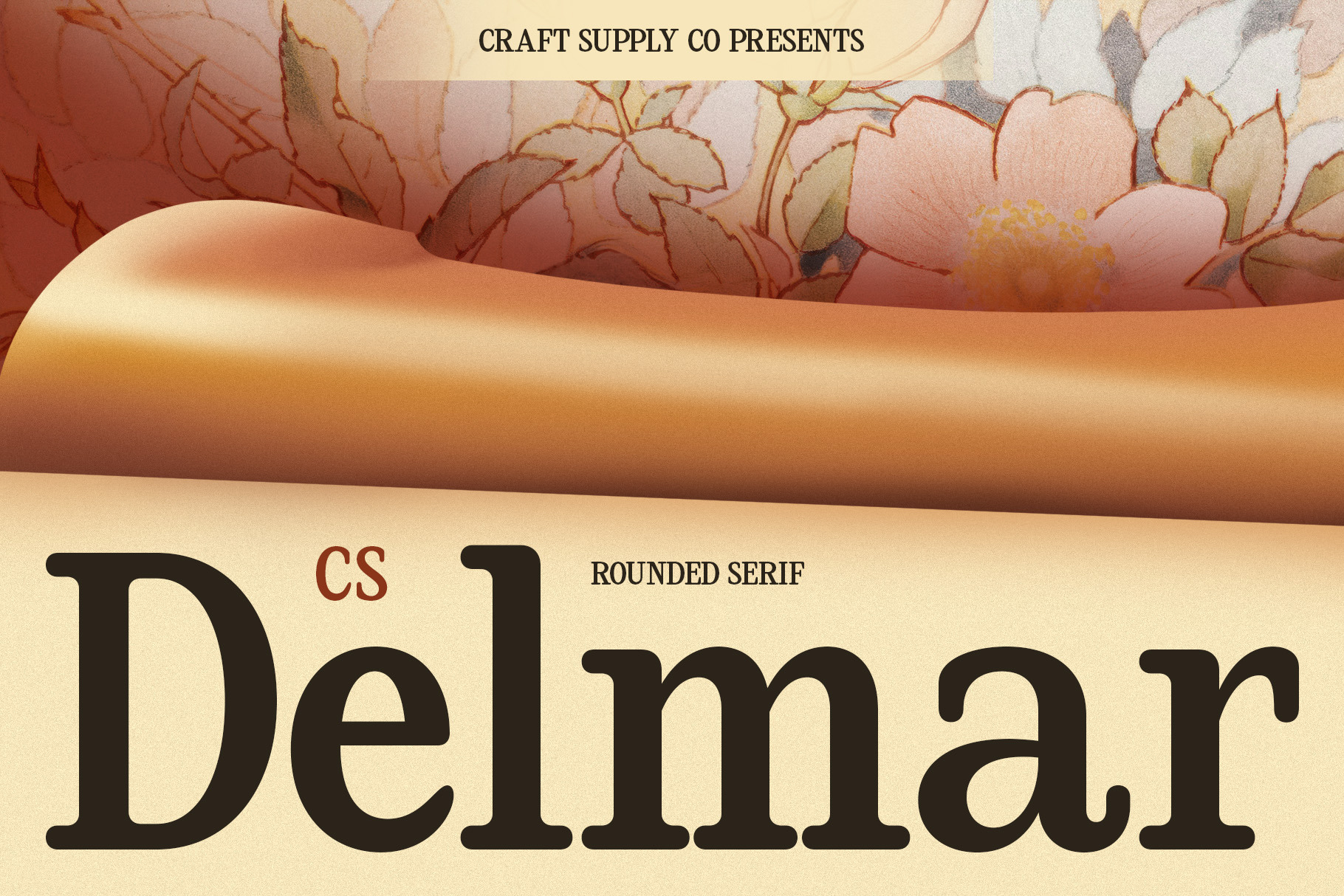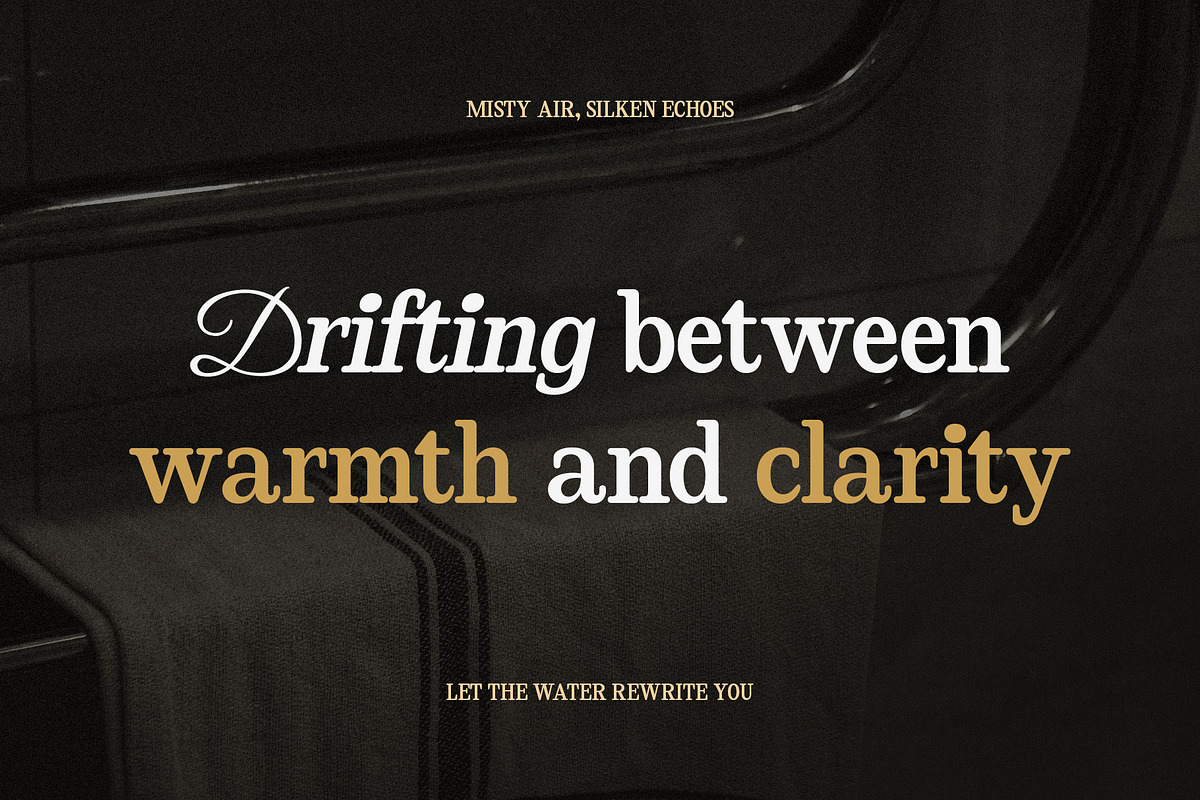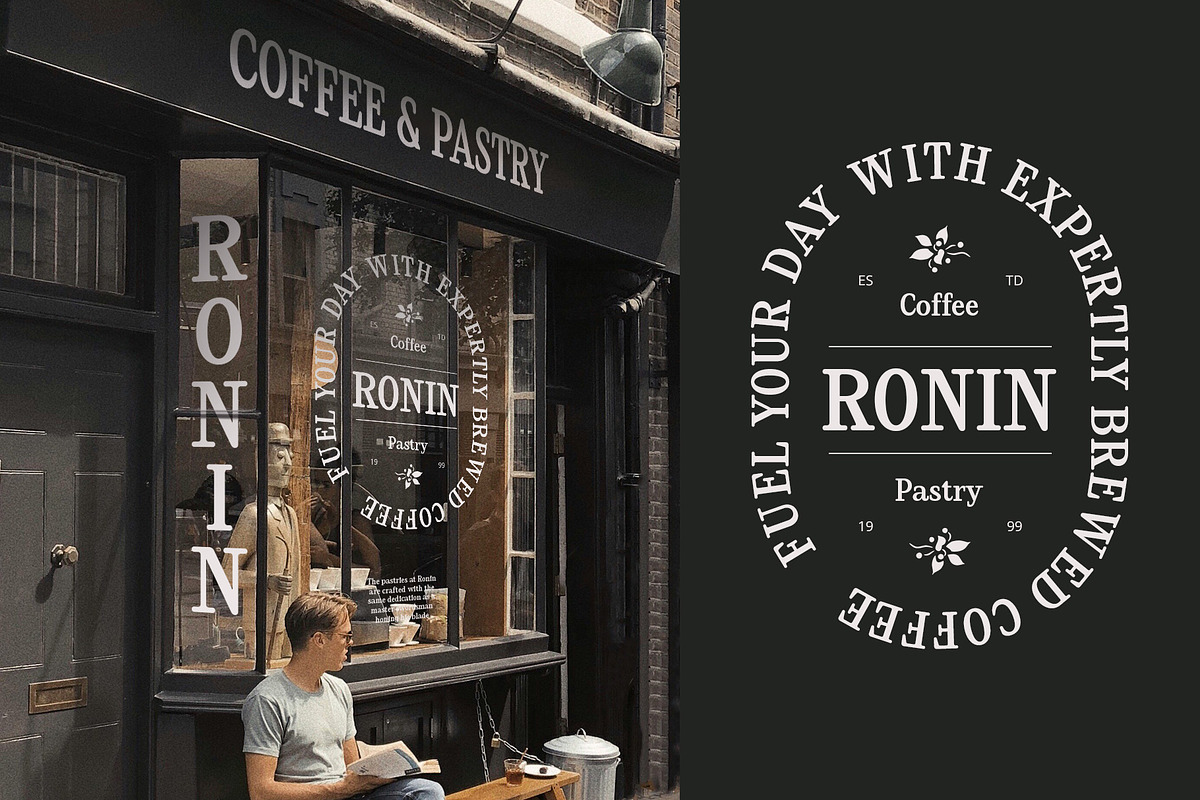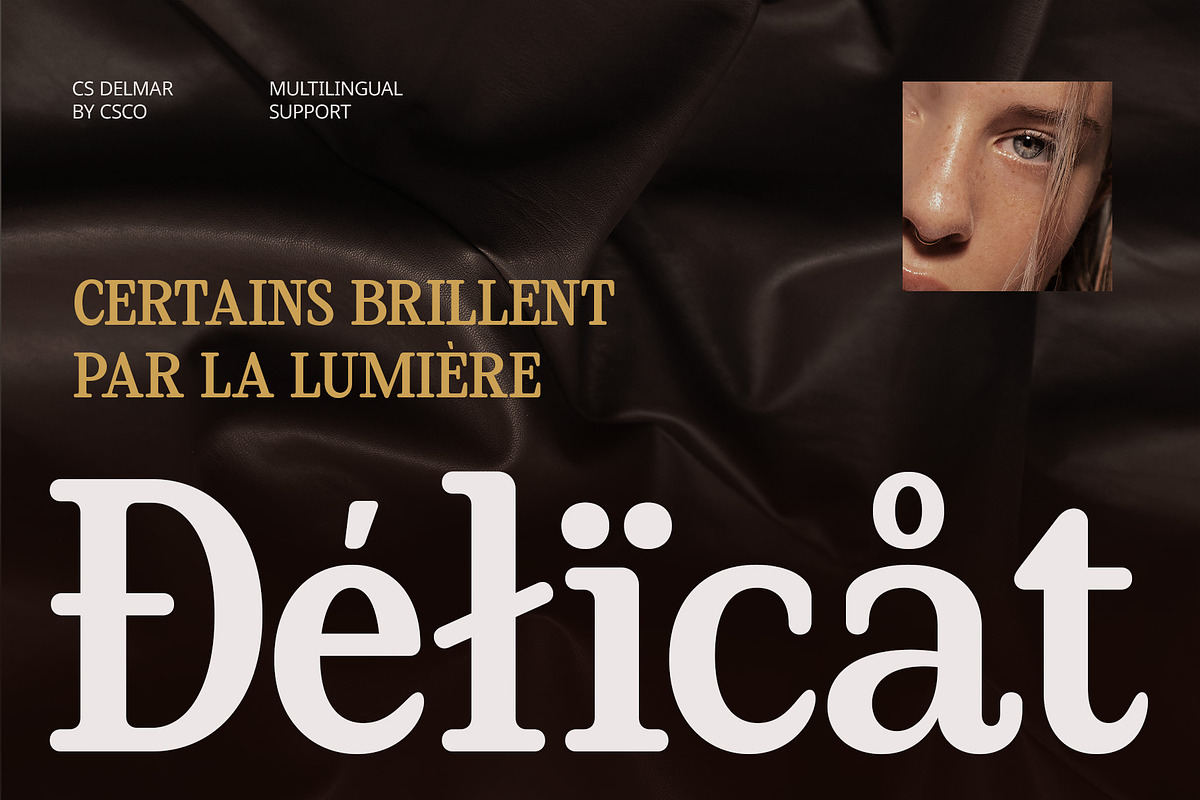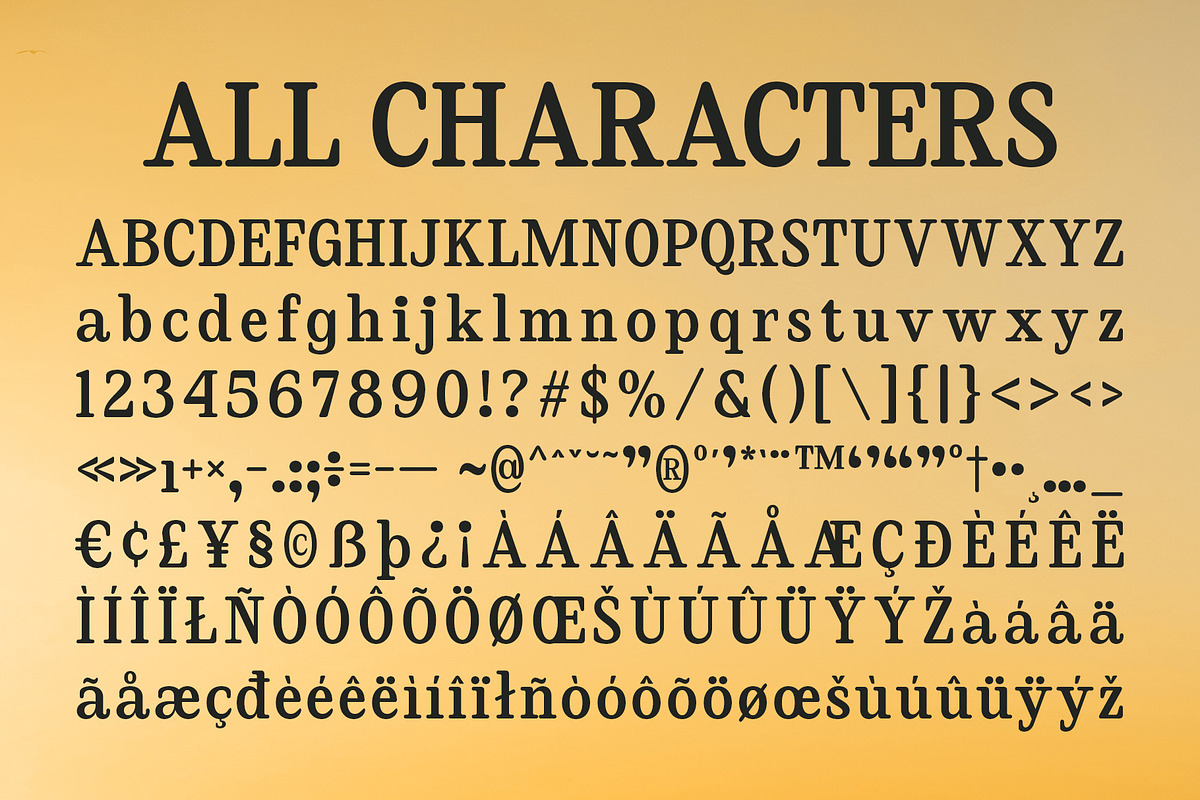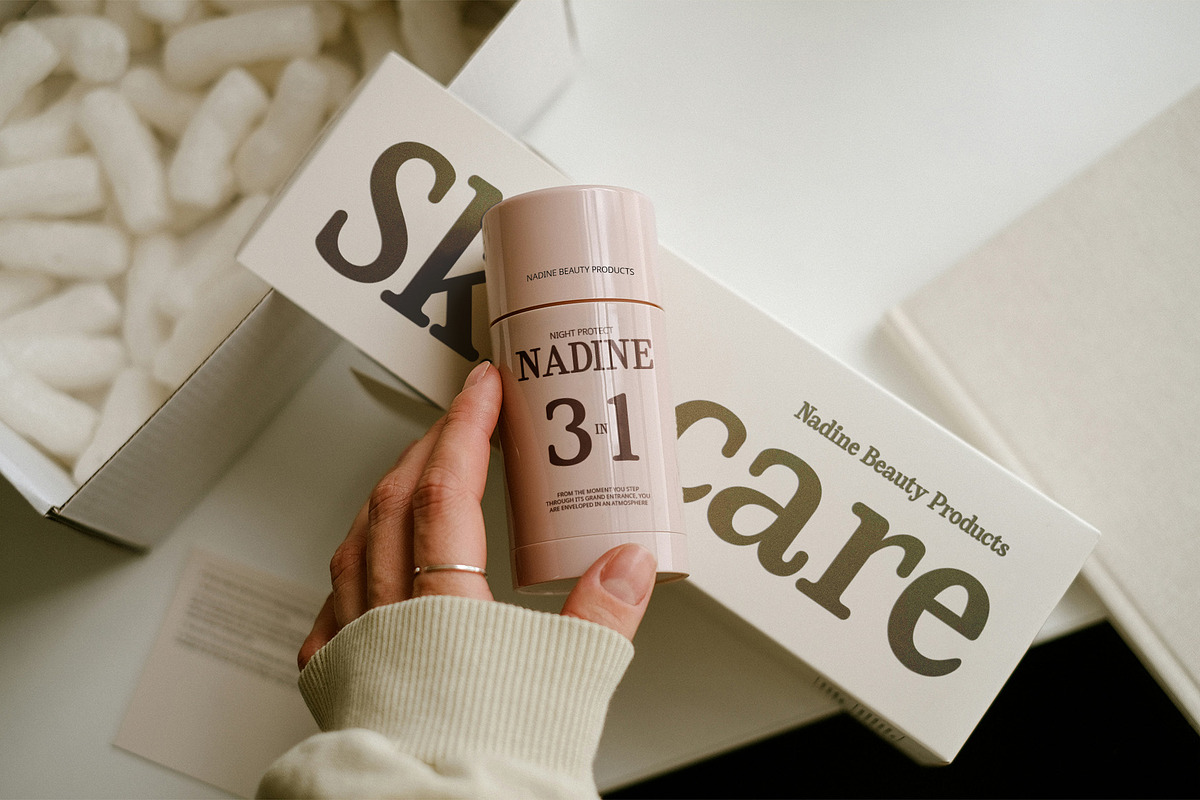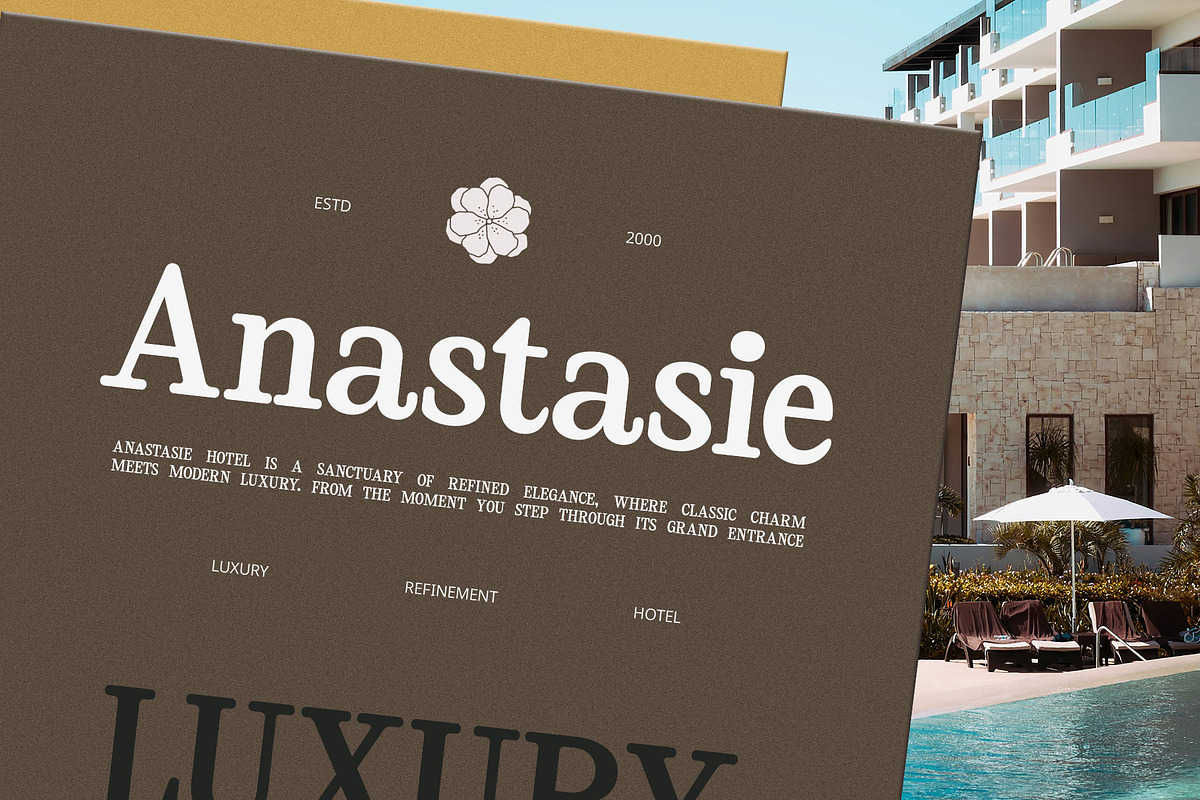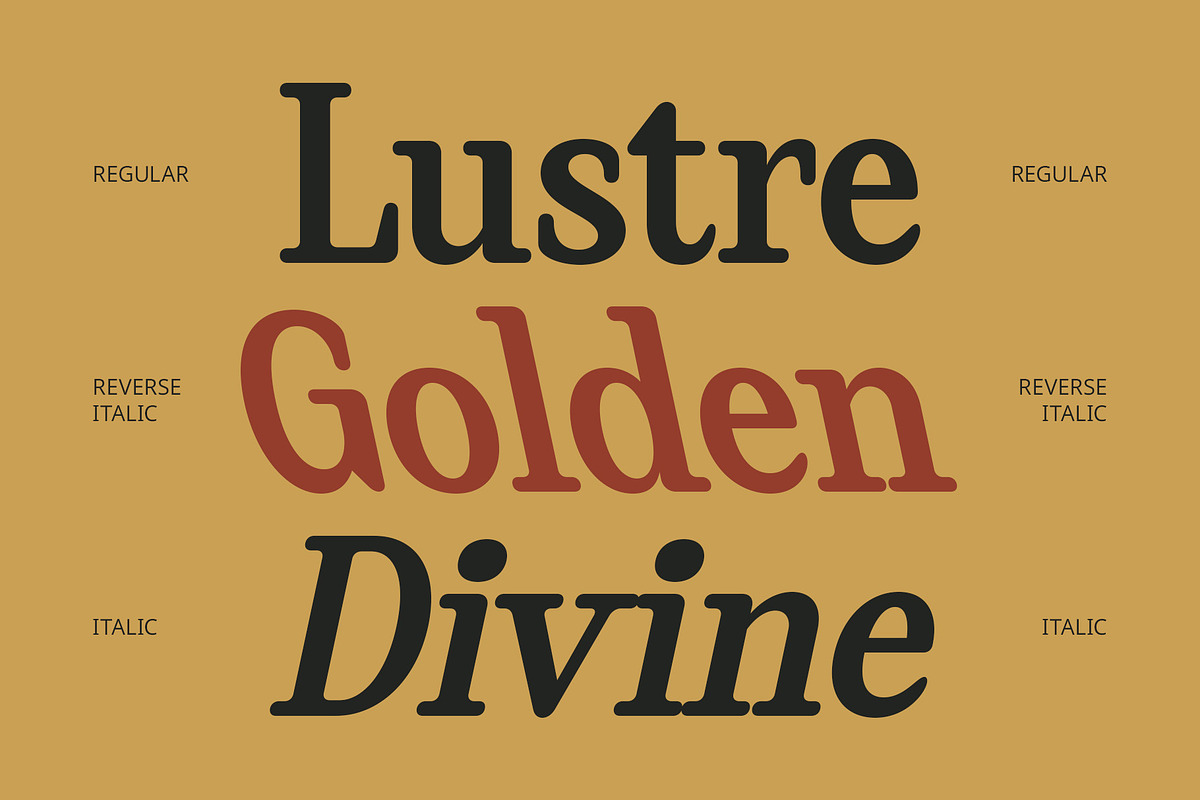
CS Delmar – Retro Font
CS Delmar – Retro Font: A Nostalgic Blend of Soft Curves and Vintage Charm
Rounded Serif with a Retro Aesthetic CS Delmar – Retro Font is a rounded serif font inspired by the classic ’90s retro aesthetic. With its soft, curved letterforms and smooth structure, it instantly evokes a warm and familiar feel, making it an ideal choice for designs that aim to capture a sense of nostalgia. Its distinct vintage character is enhanced by its well-balanced shapes, offering a harmonious blend of retro style and modern usability.
Friendly and Playful Character Designed with rounded edges and fluid contours, CS Delmar presents a friendly and approachable personality. This font is perfect for projects that require a fun, casual, and inviting tone while maintaining a strong visual presence. Whether used in branding, editorial layouts, or posters, it brings an effortlessly playful yet professional look that appeals to a broad audience.
Balancing Vintage and Modern Design While CS Delmar draws inspiration from nostalgic typography, it is carefully refined to align with modern design trends. The result is a font that retains its retro charm while offering a contemporary touch, making it an excellent choice for designers looking to create a timeless yet fresh aesthetic. The font’s clean and polished look ensures that it remains versatile across various media.
- CS Delmar Regular
- CS Delmar Italic
- CS Delmar Reverse Italic